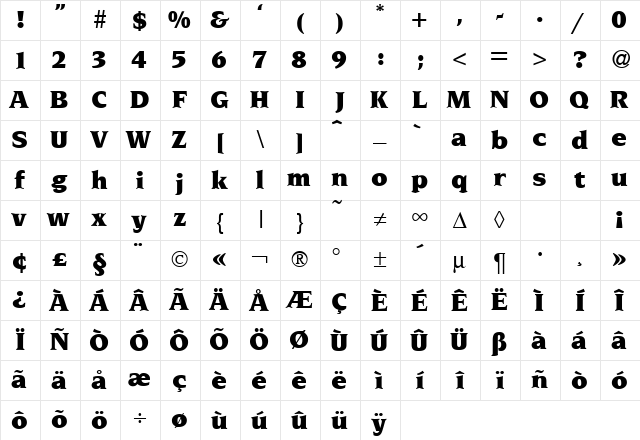
NoveltyUltra Regular
Design Context for NoveltyUltra
NoveltyUltra is a composed and adaptable typeface that performs quietly and consistently across a wide range of design contexts.